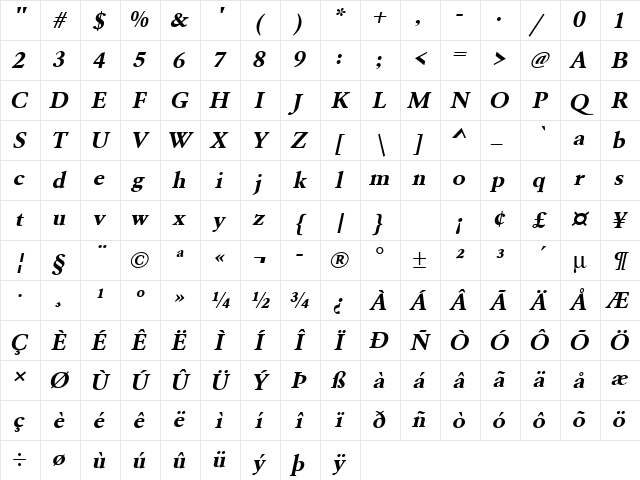
Complete URWGaramondTWid Bold Oblique glyph index. Displaying only characters natively supported by URWGaramondTWid Bold Oblique font.
URWGaramondTWid is a composed and adaptable typeface that performs quietly and consistently across a wide range of design contexts. The slanted form adds forward momentum and visual energy. Its bold stroke weight gives it real presence on the page.